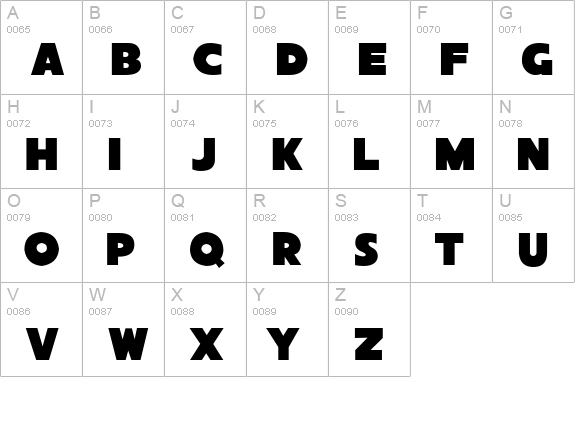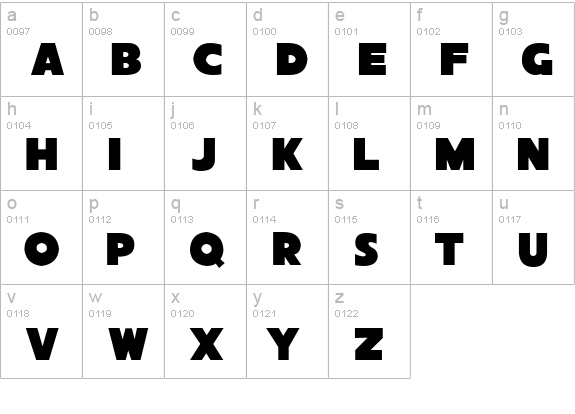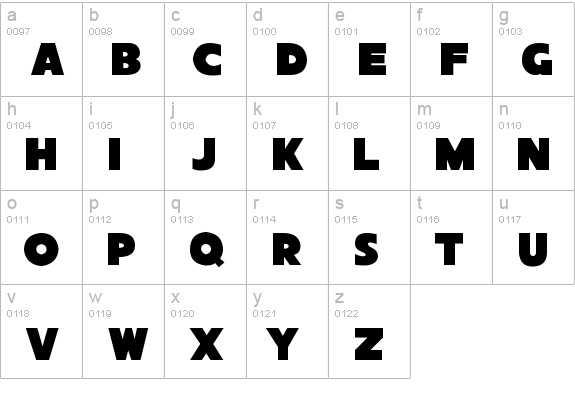
Sans Poster Bold JL is a strong, high-contrast variant in the Sans typeface family \xE2\x80\x94 well suited to headlines, attention-grabbing titles, and strong calls-to-action.
Sans Poster Bold JL is a captivating and bold font that exudes confidence and modernity. With its clean lines and strong presence, this font is perfect for catching the eye and making a statement. Whether used in headlines, logos, or posters, Sans Poster Bold JL commands attention and adds a touch of sophistication to any design. This font is not only visually striking, but also incredibly versatile. Its bold weight gives it a strong and impactful appearance, making it ideal for a variety of design projects. From advertising campaigns to branding materials, Sans Poster Bold JL effortlessly elevates any visual composition. One of the best things about Sans Poster Bold JL is that it is free. Yes, you read that right. This stunning font is freely available to download at FontsMarket.com. Now, you can enhance your designs without having to worry about breaking the bank. With its free availability, Sans Poster Bold JL opens up a world of possibilities for both professional designers and casual enthusiasts. Whether you're a seasoned designer looking to add a fresh element to your work or a beginner eager to experiment with typography, this font is the perfect starting point. So, why wait? Don't miss out on the opportunity to download Sans Poster Bold JL for free at FontsMarket.com. Unleash your creativity and take your designs to new heights with this captivating and versatile font.